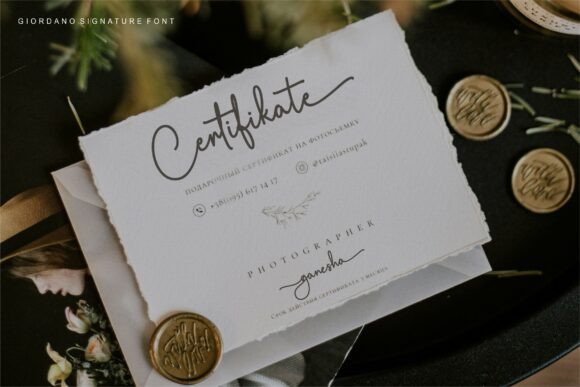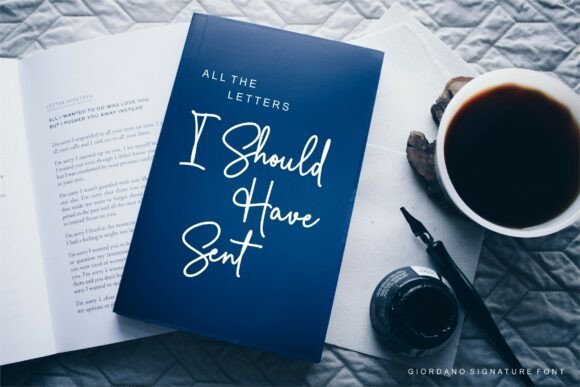
Giordano Font
Giordano is a modern handwritten script typeface that combines elegance with a natural flow. Its smooth strokes and stylish curves are designed to capture the look of authentic handwriting, making it ideal for personal branding, wedding invitations, fashion logos, photography watermarks, social media posts, and signature-style designs. With its refined details and graceful letterforms, Giordano Signature adds a touch of sophistication and personality to any creative project.